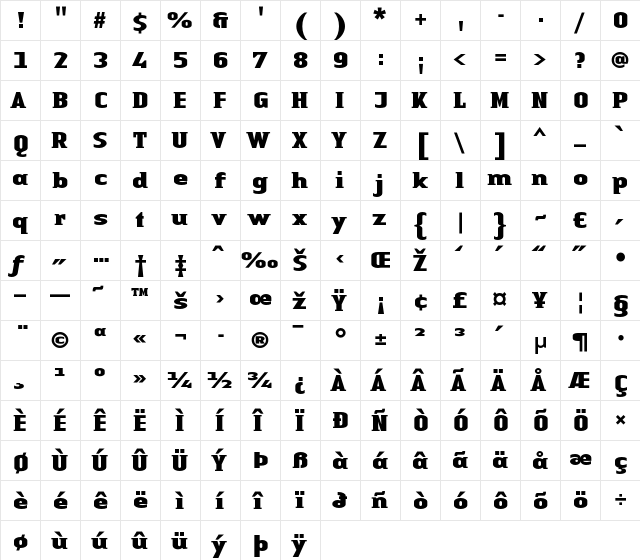
LTAuthenticSmallSerif Medium Regular
Design Context for LTAuthenticSmallSerif Medium Typeface
LTAuthenticSmallSerif Medium carries the refined structure of traditional serif typography, with bracketed terminals and considered proportions that communicate credibility and craft.
Pro Tip: Use LTAuthenticSmallSerif Medium for editorial body copy and considered headline work. Pair with a neutral sans for UI elements or captions to create a classic hierarchy.